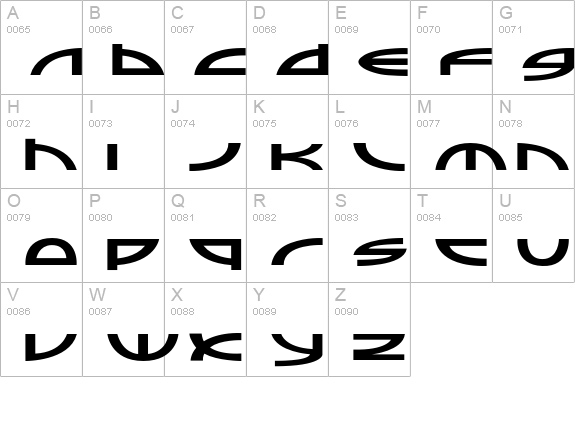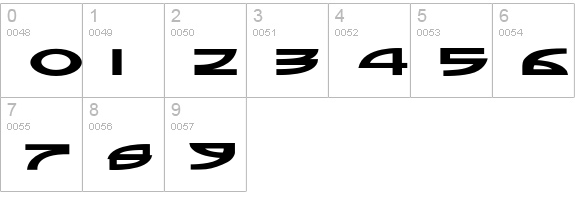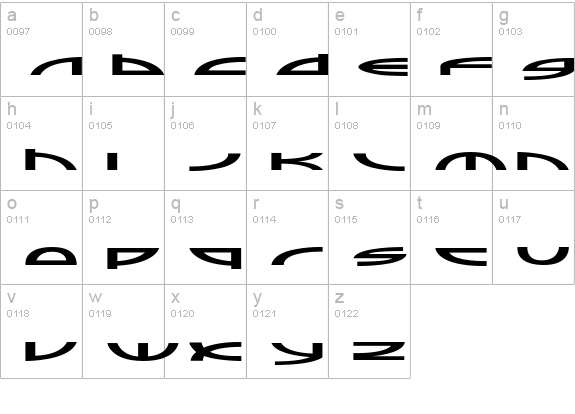
Sampler-Plain Font Details
Introducing Sampler-Plain font, a versatile and stylish typeface that is sure to make a statement in any design project. With its clean and crisp lines, this font exudes a sense of modernity and sophistication. Whether you're working on a logo, branding materials, or a website, Sampler-Plain font is the perfect choice to elevate your design to the next level. What sets Sampler-Plain font apart is not only its aesthetic appeal but also its accessibility. It is freely available to download at FontsMarket.com, making it a valuable asset for designers on a budget or those looking for high-quality fonts without breaking the bank. The beauty of Sampler-Plain font lies in its simplicity. Its timeless design ensures that it will remain relevant and stylish for years to come. The legibility of each character is remarkable, making it easy to read in both print and digital formats. Another standout feature of Sampler-Plain font is its versatility. It seamlessly adapts to various design styles, whether you're going for a minimalistic and clean look or a bold and eye-catching design. Its ability to effortlessly blend into any design concept makes it a go-to choice for designers across different industries. The extensive character set of Sampler-Plain font includes uppercase and lowercase letters, numerals, punctuation marks, and special characters. This comprehensive collection allows you to create visually stunning designs with ease and precision. In addition to its visual appeal, Sampler-Plain font is also highly functional. Its well-crafted design ensures that it remains legible even at small font sizes, making it suitable for both headlines and body text. This font also pairs exceptionally well with other typefaces, allowing you to create harmonious and cohesive designs. Experience the freedom of creative expression with Sampler-Plain font. Download it for free at FontsMarket.com and unlock the endless possibilities it offers for your design projects. Whether you're a professional designer or a beginner, this font is sure to become a valuable asset in your toolkit. Embrace the elegance and versatility of Sampler-Plain font and take your designs to new heights.